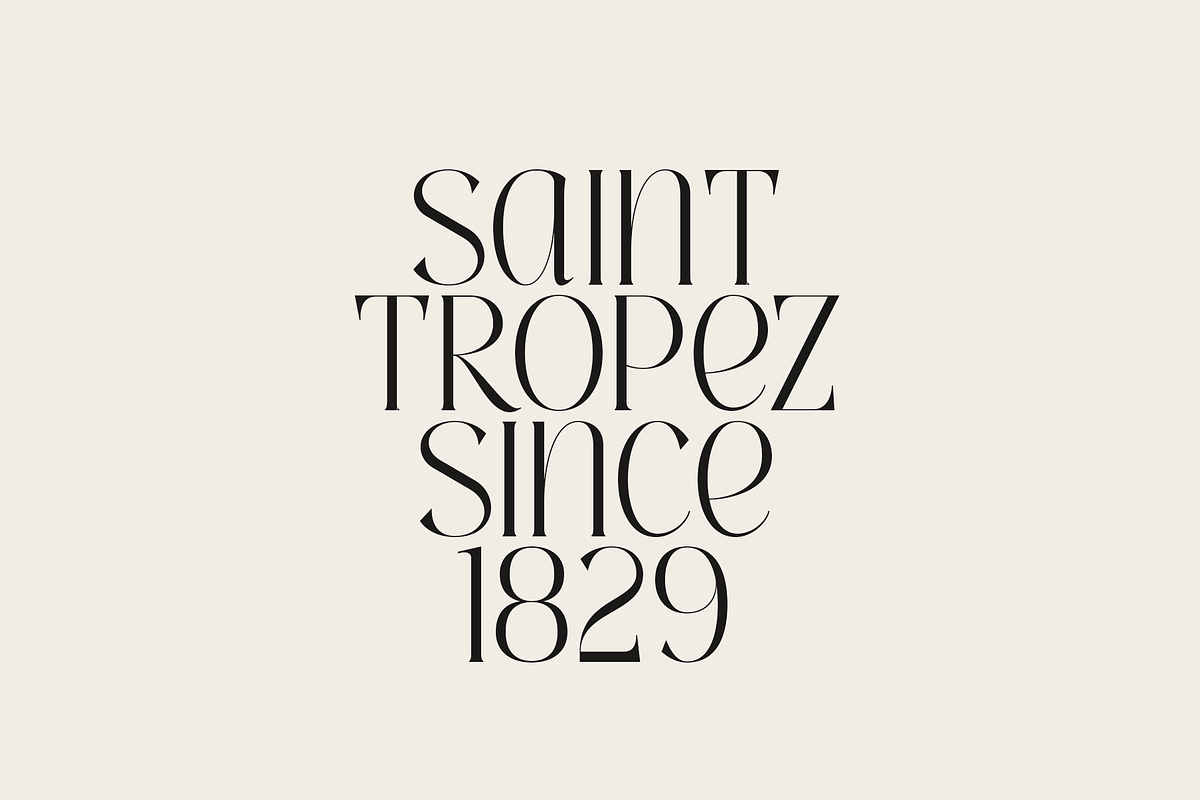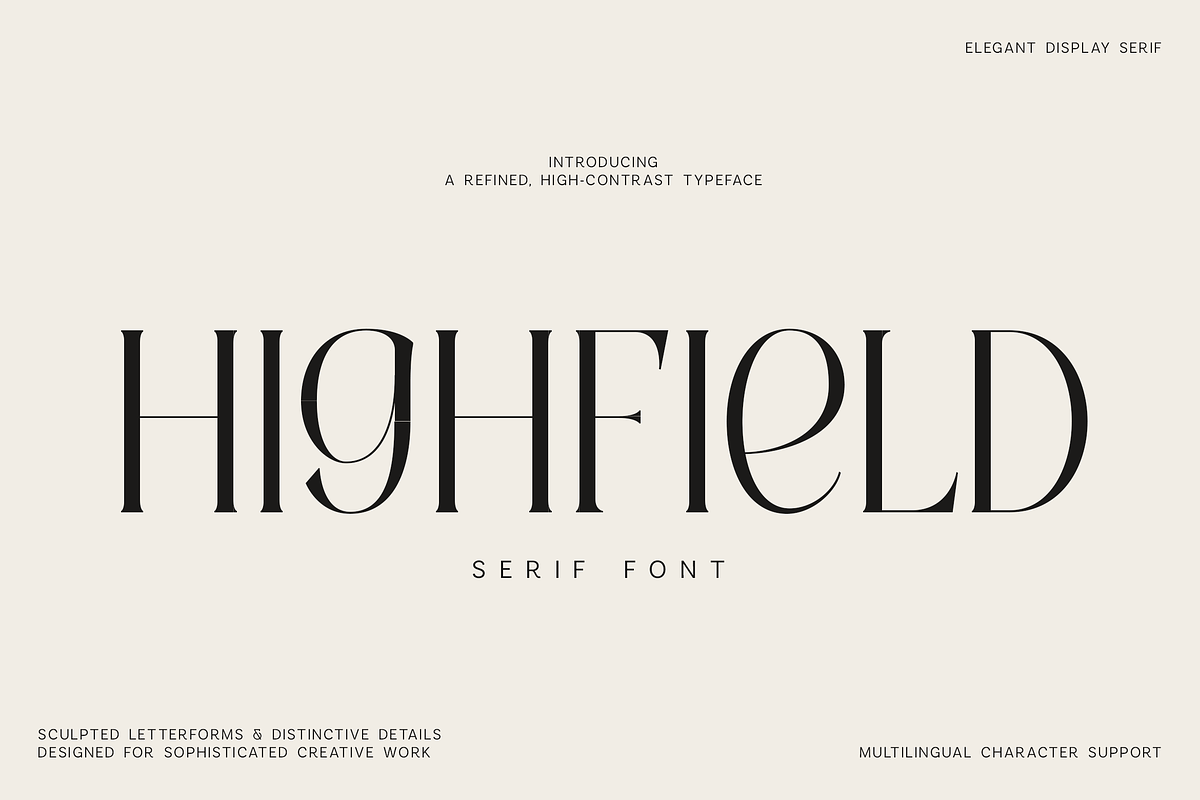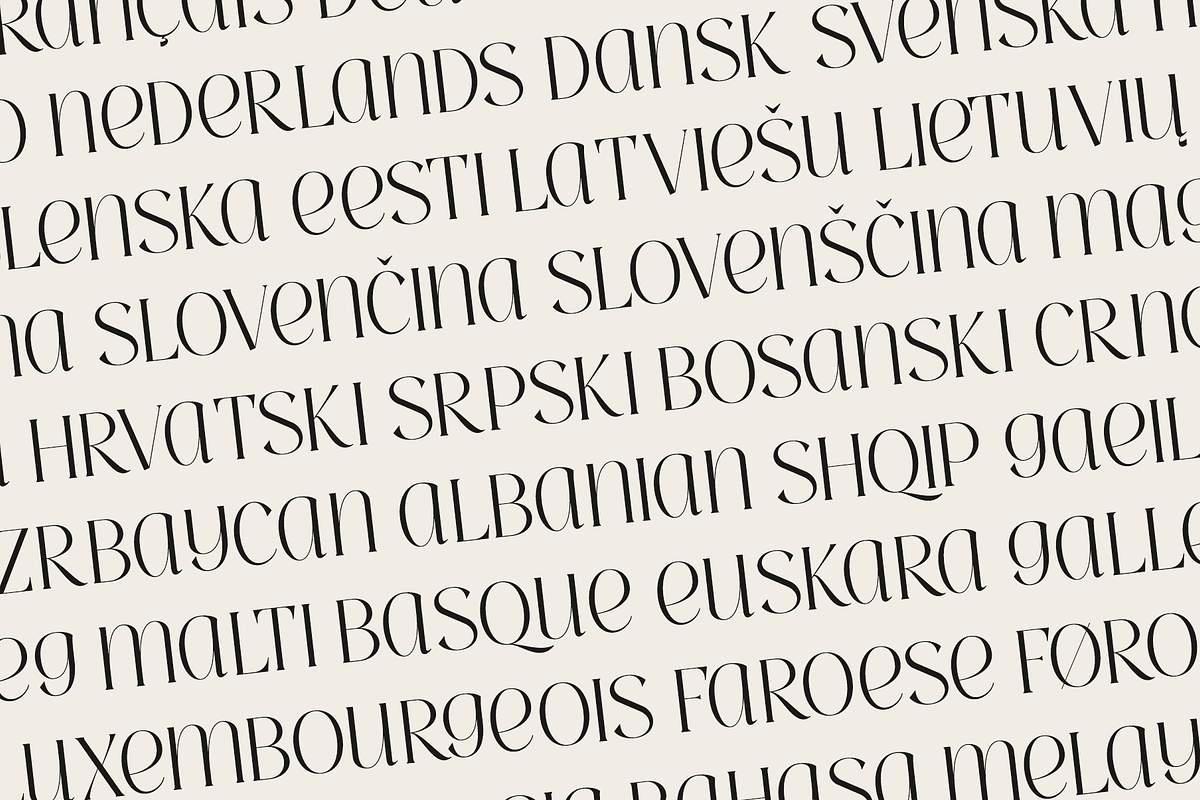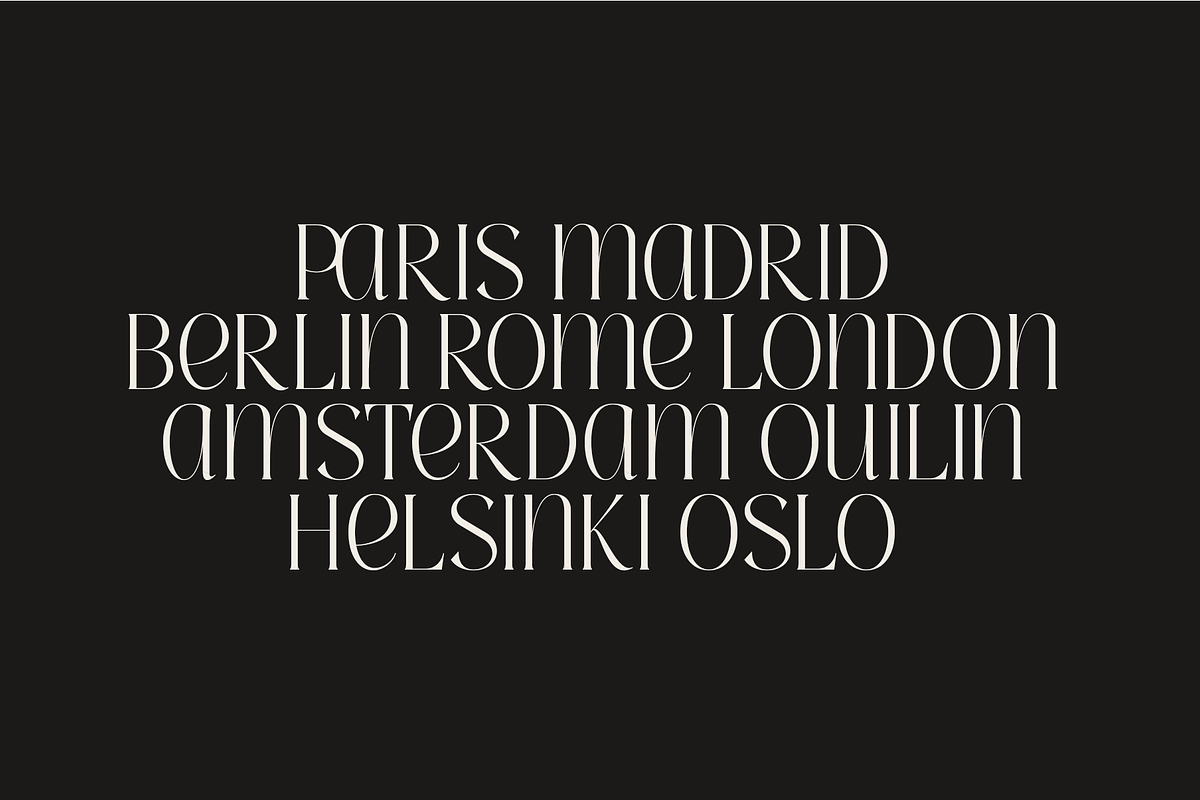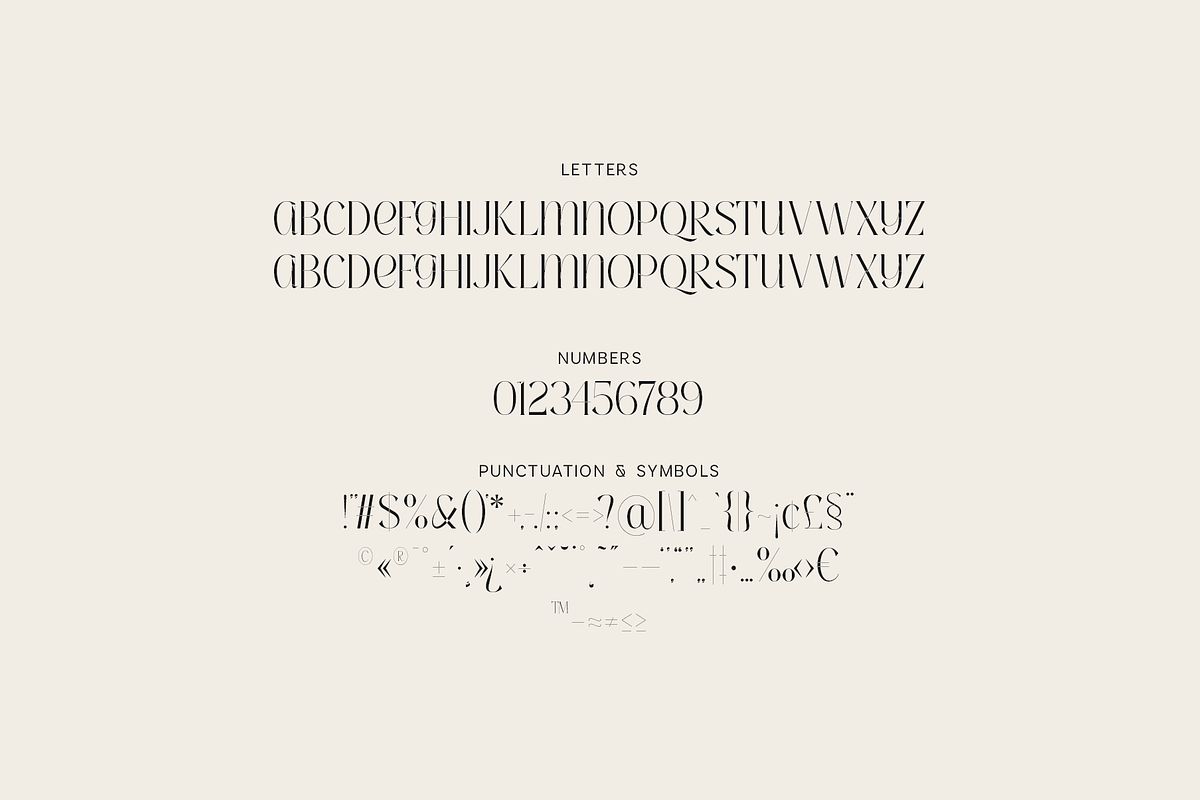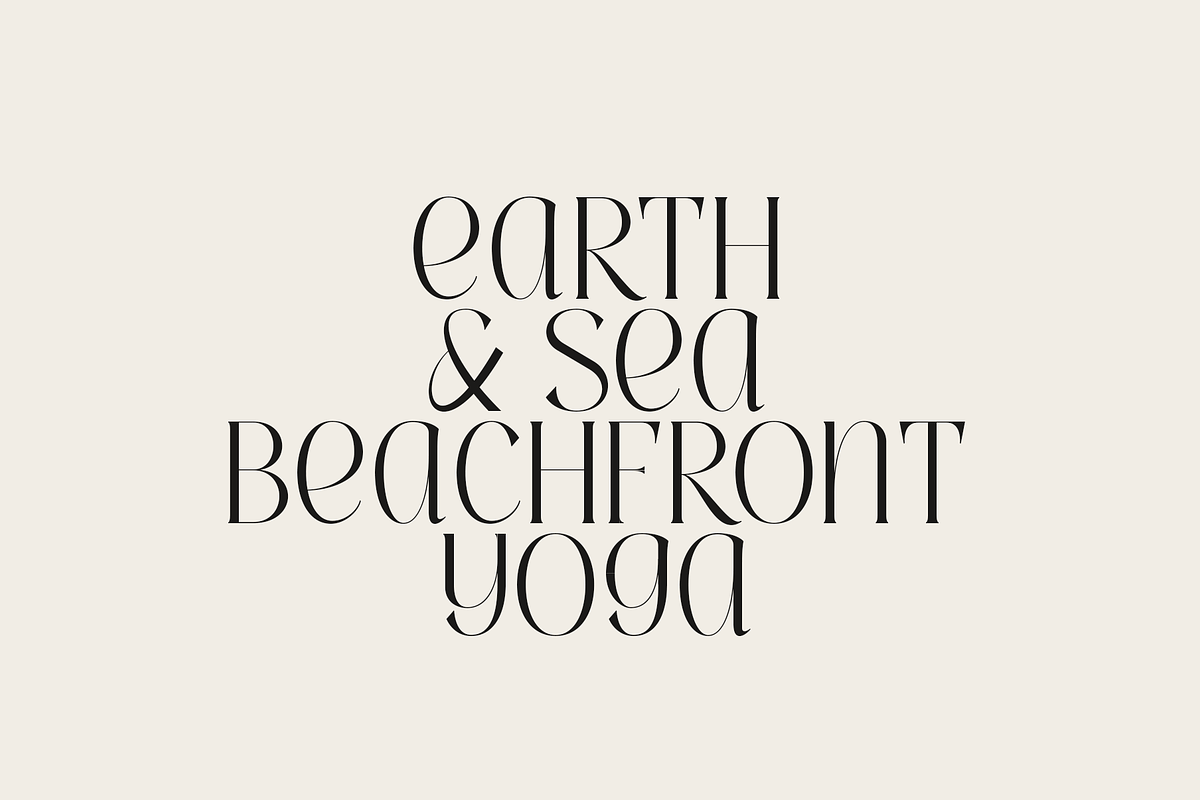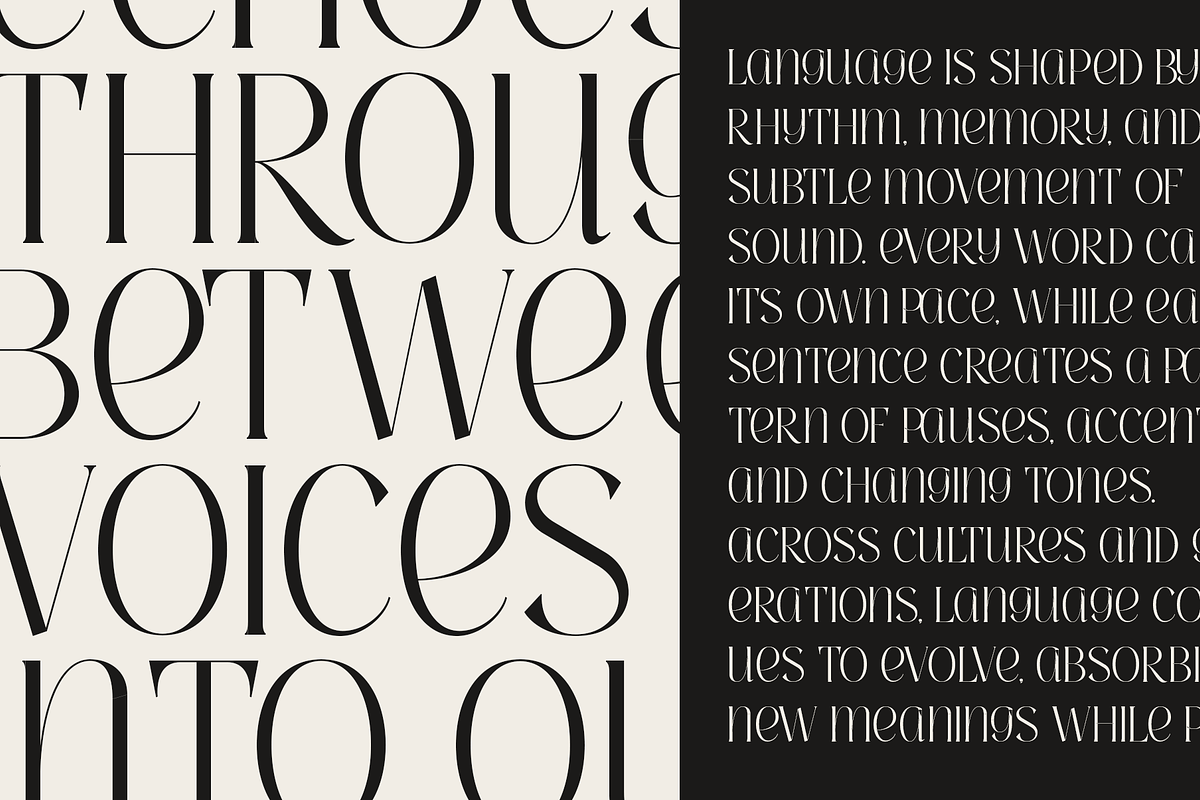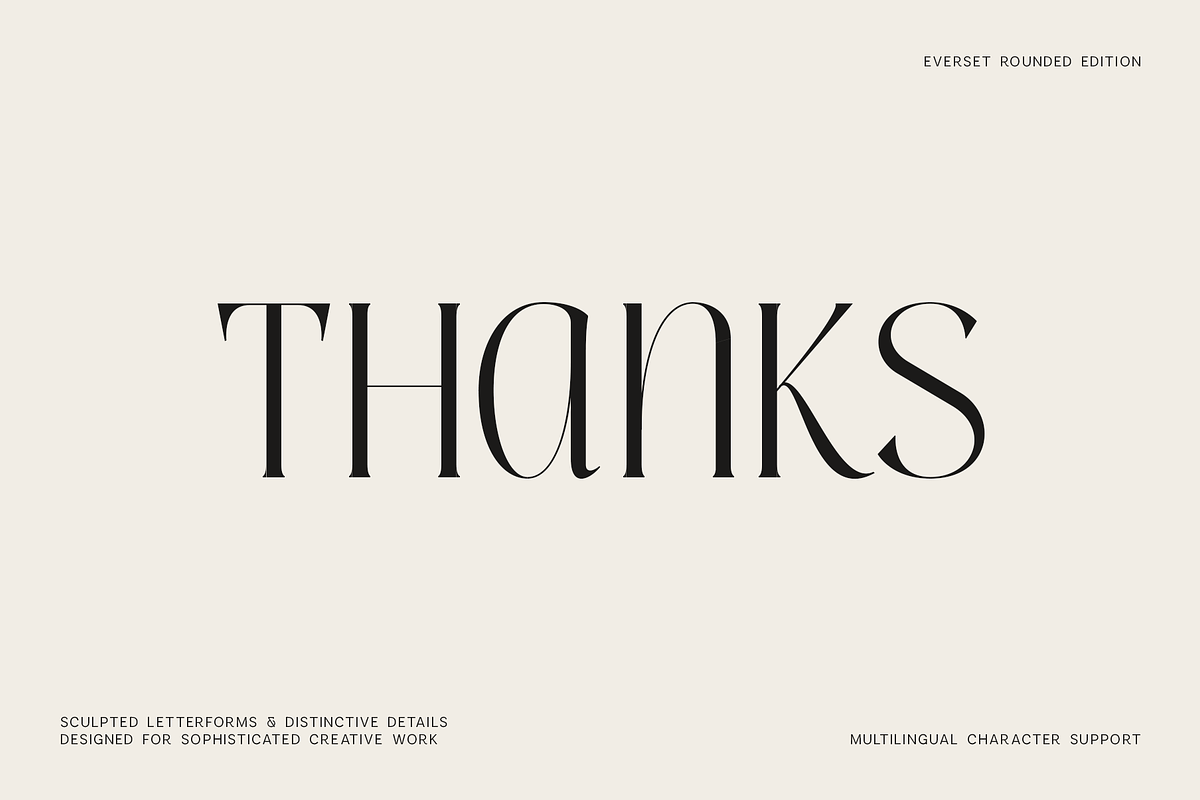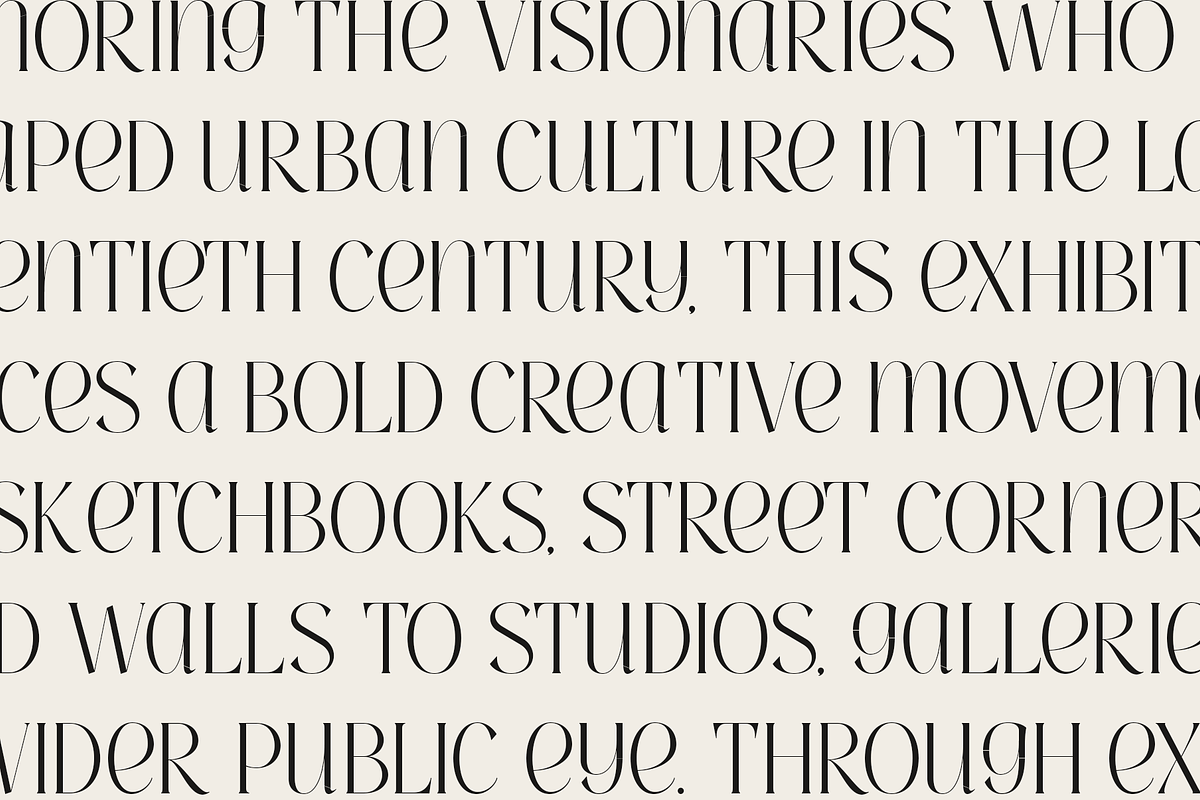
Highfield - Elegant Editorial Serif
Highfield is an elegant high-contrast display serif designed for sophisticated, fashion-forward typography. Its sculpted letterforms combine dramatic proportions, delicate hairlines, and distinctive curves to create an unmistakably refined editorial look.
Perfect for luxury branding, fashion editorials, magazine layouts, logos, packaging, wedding stationery, beauty products, social media graphics, posters, and memorable headlines. Highfield brings an elevated, contemporary character to every composition while remaining beautifully balanced and versatile.
• Uppercase and lowercase letters • Numerals and punctuation • Symbols and special characters • Multilingual language support • Carefully crafted, distinctive letterforms
Make your next project feel sophisticated, expressive, and effortlessly modern with Highfield.